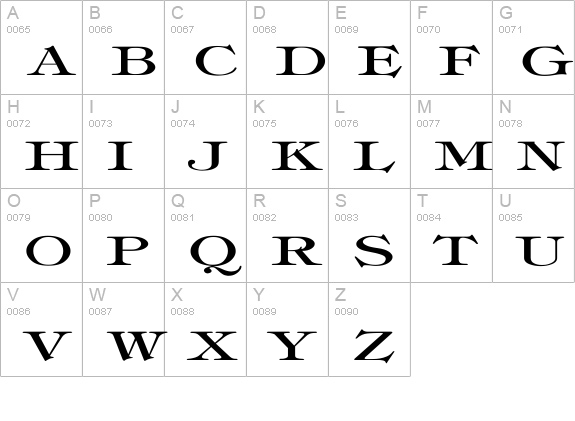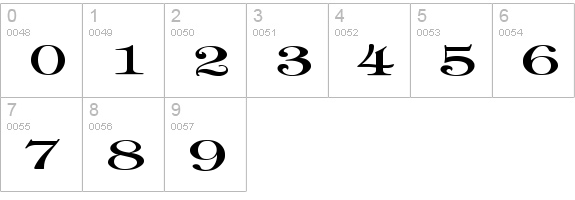
Tiffany-Normal Ex is the standard, neutral variant in the Tiffany typeface family \xE2\x80\x94 well suited to general body text, paragraphs, and standard typographic work.
Tiffany-Normal Ex is a stunning font that beautifully combines elegance and simplicity. With its clean lines and graceful curves, this font exudes a sense of sophistication that is perfect for any project. Whether you're designing wedding invitations, creating a logo for your business, or working on a branding project, Tiffany-Normal Ex will surely elevate your designs to new heights. What sets Tiffany-Normal Ex apart is not only its timeless appeal, but also the fact that it is available for free. Yes, you read that right. You can freely download this extraordinary font at FontsMarket.com. This means that you don't have to break the bank to add a touch of class to your designs. With Tiffany-Normal Ex, you have the opportunity to create professional-looking designs without spending a dime. The versatility of Tiffany-Normal Ex is another noteworthy feature. This font effortlessly adapts to various design styles and applications, making it an ideal choice for both print and digital projects. Its legibility and readability ensure that your message is conveyed effectively, no matter the medium. Whether you're a seasoned designer or just starting out, Tiffany-Normal Ex is a valuable addition to your font collection. Its timeless elegance, free availability, and versatility make it a font that you can rely on time and time again. Take advantage of the opportunity to download Tiffany-Normal Ex for free at FontsMarket.com, and let your creativity soar.